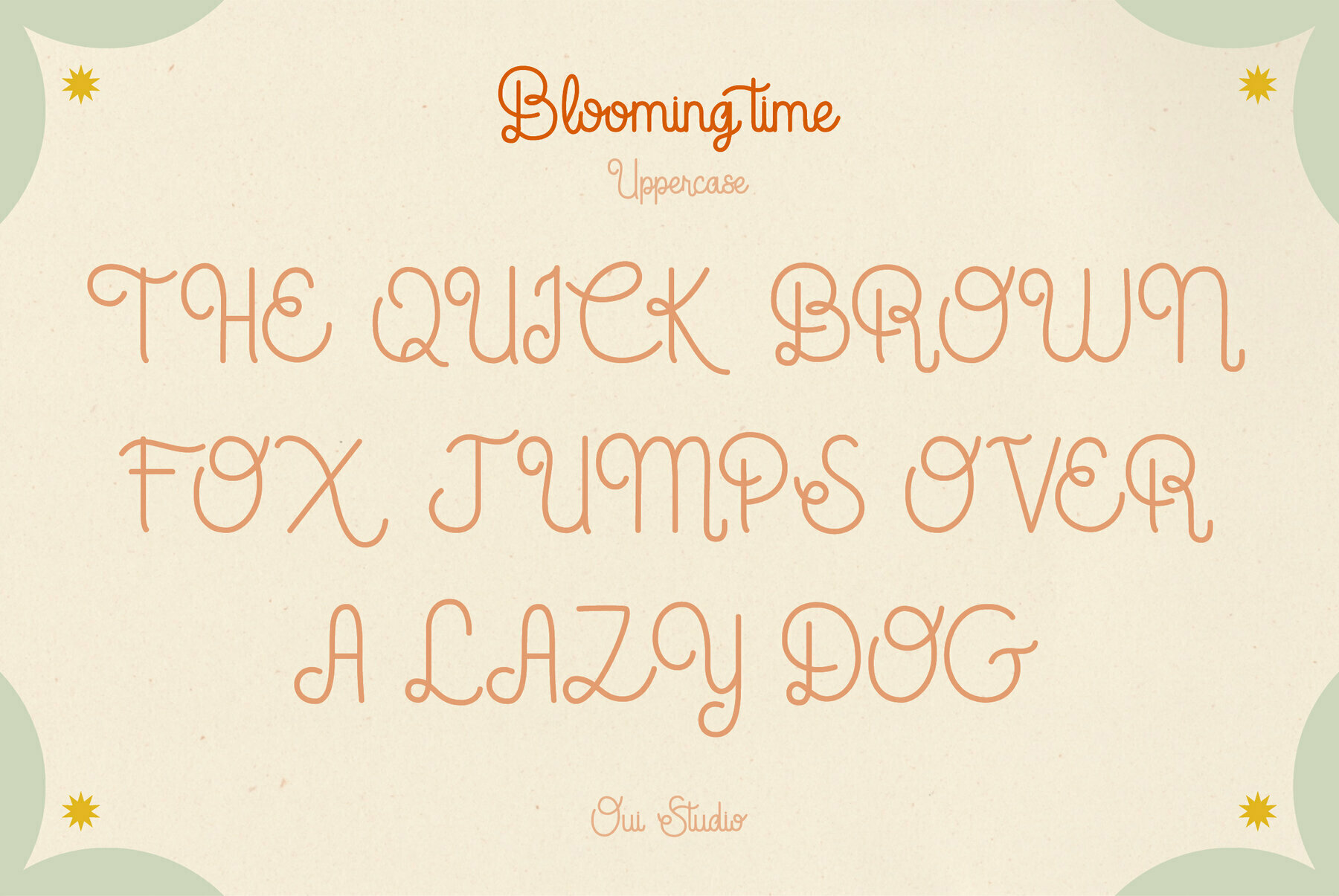
Blooming Time Font
OUI Blooming Time
Blooming Time is a captivating monoline script font that embodies charm and elegance in every curve. Ideal for wedding invitations, branding projects, and fashion print materials, it lends an air of beauty and sophistication to any creative endeavor. Whether for quotes, titles, or other artistic works, Blooming Time seamlessly complements designs that require a touch of grace.Blooming Time: Endearing Monoline Script